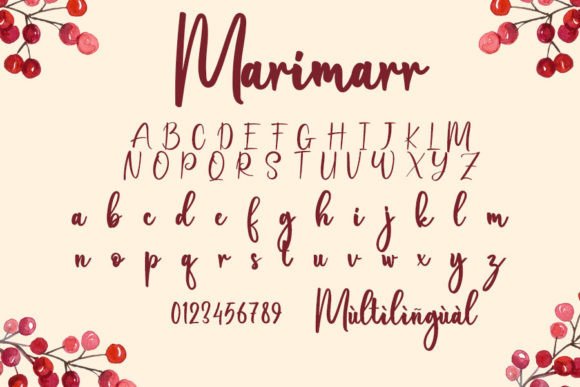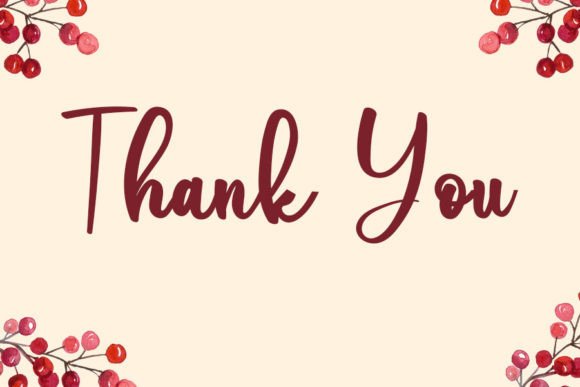
Marimarr Font
About Marimarr Font
Introducing “Marimarr,” a delicate and stylish script font that adds a touch of beauty to a diverse range of designs. Crafted with elegance and sophistication, this font is the perfect choice for projects that demand a personalized and refined style. Whether you’re working on wedding invitations, thank you cards, greetings, logos, or any other design, “Marimarr” brings forth an exquisite and personalized aesthetic.
The delicate and stylish script of “Marimarr” is designed to enhance the overall charm of your projects. Its intricate strokes create a graceful flow that adds an element of sophistication, making it well-suited for occasions where a sense of refinement is desired.
Wedding invitations adorned with “Marimarr” exude romantic elegance, offering a distinctive and stylish touch that captures the essence of special moments. The font’s delicate nature enhances the overall aesthetic, providing a fitting choice for creating memorable invitations.
Expressing gratitude through thank you cards takes on a new level of elegance with the use of “Marimarr.” The script font imparts a sense of appreciation with a touch of sophistication, elevating the visual appeal and conveying sentiments in a refined manner.
In the realm of logos, “Marimarr” becomes a distinctive and stylish choice. Its delicate script adds a personalized and sophisticated touch to brand identities, creating a memorable and refined visual representation that resonates with a sense of quality and care.
Greeting cards, whether for birthdays or special occasions, benefit from the delicate and stylish design of “Marimarr.” The font becomes an integral part of conveying emotions and sentiments with a touch of artistic flair, ensuring that your messages are beautifully presented.
In summary, “Marimarr” is not just a font; it’s a design element that brings delicacy and style to a variety of projects. Its versatile application extends to wedding-related materials, greetings, logos, and beyond. Allow “Marimarr” to be the script font that elevates your designs with a personalized and sophisticated touch, creating a lasting impression on your audience.